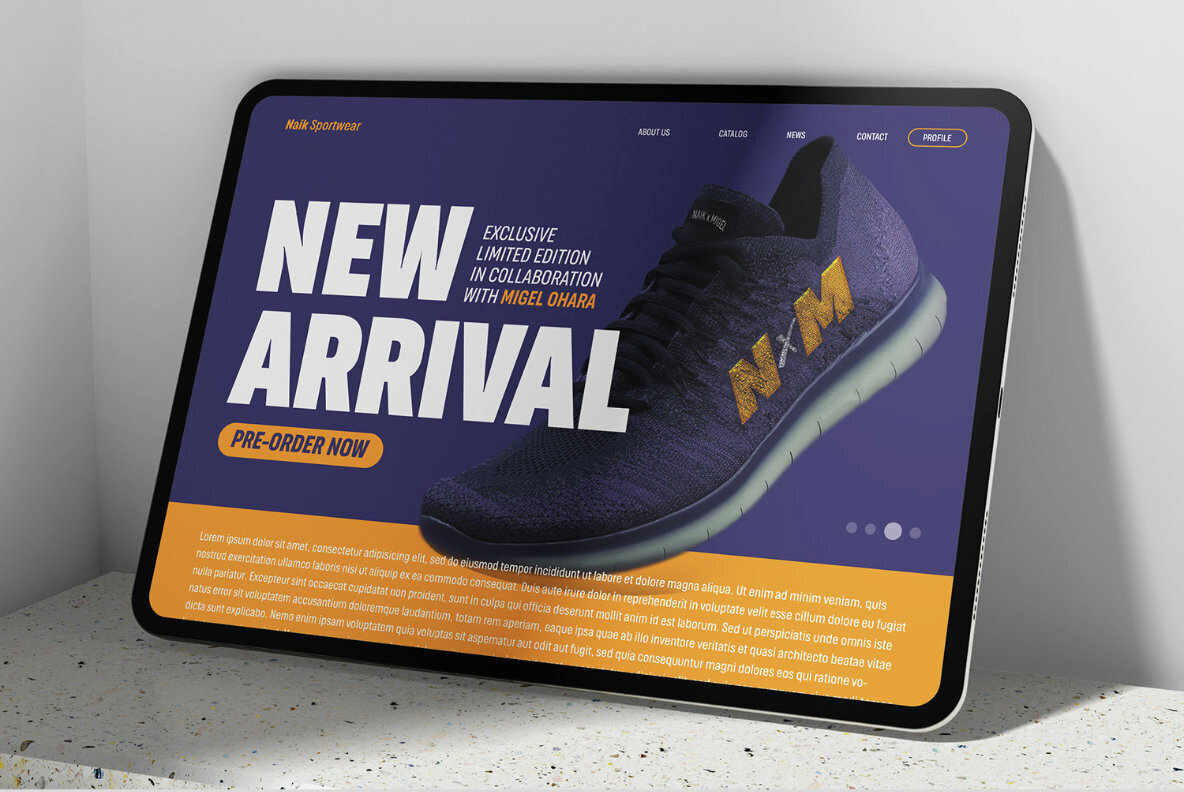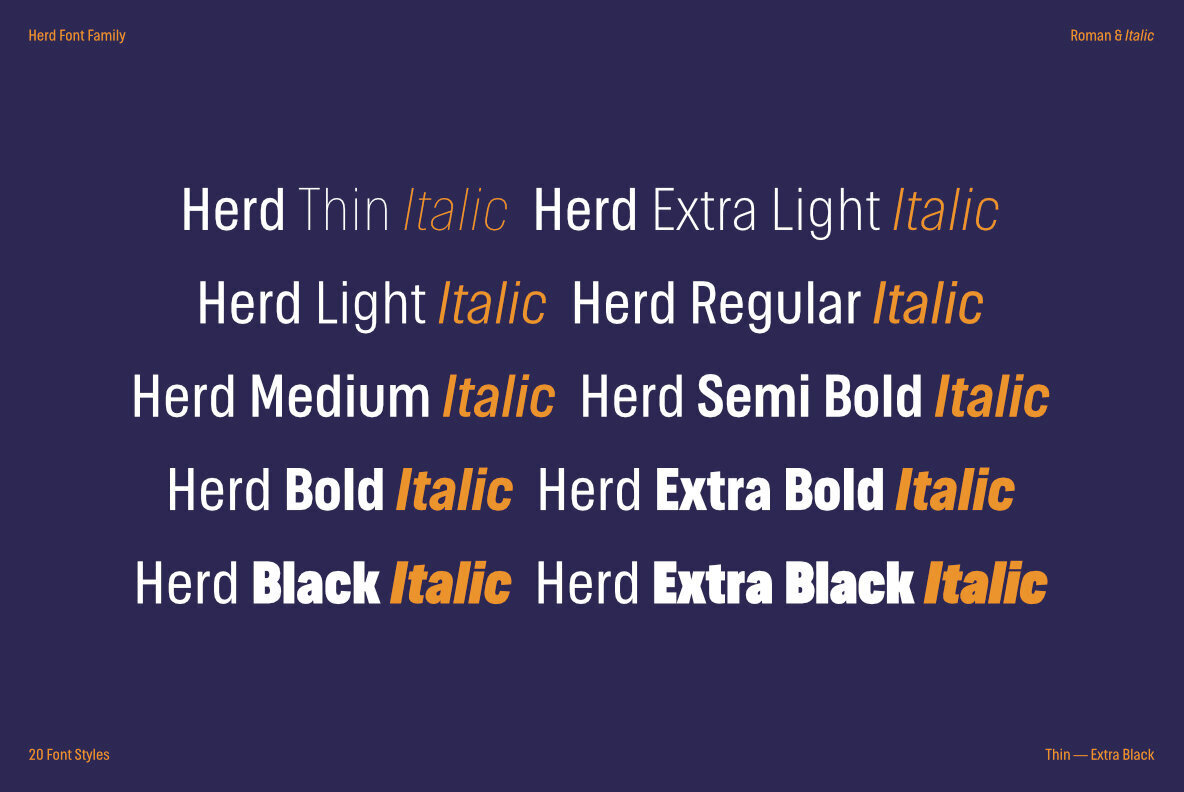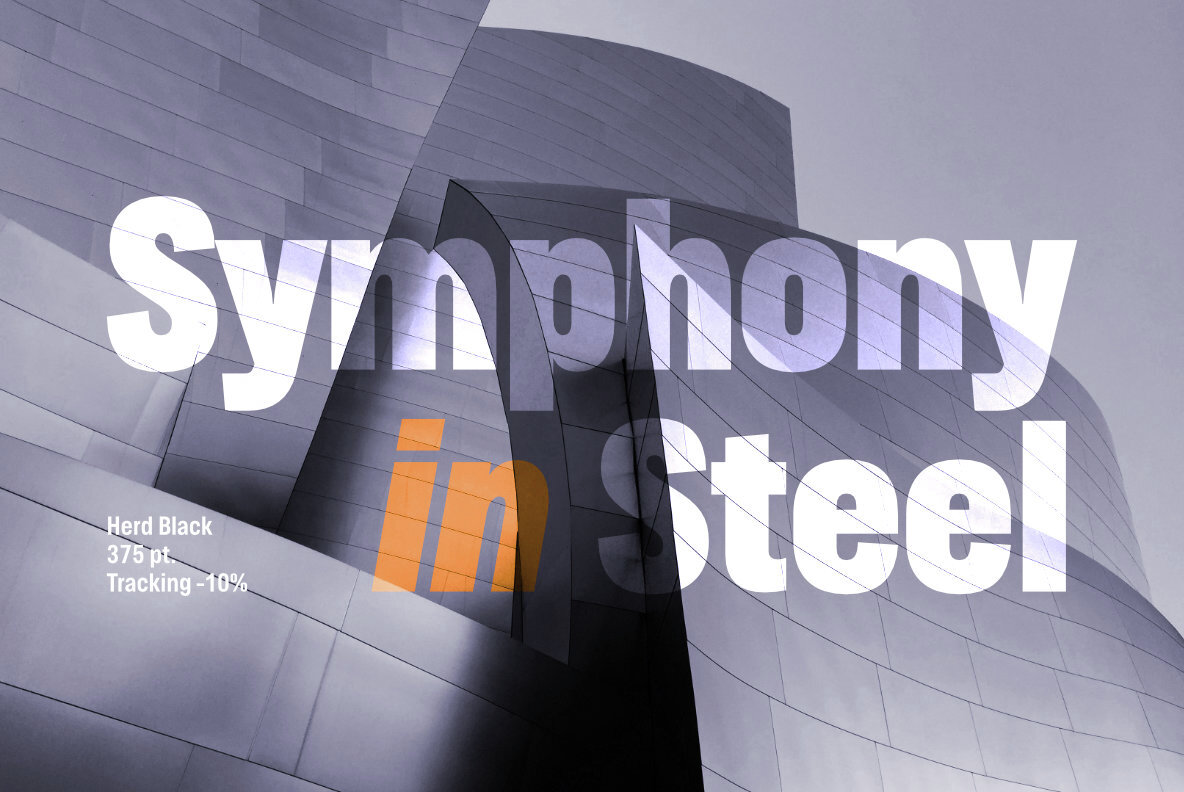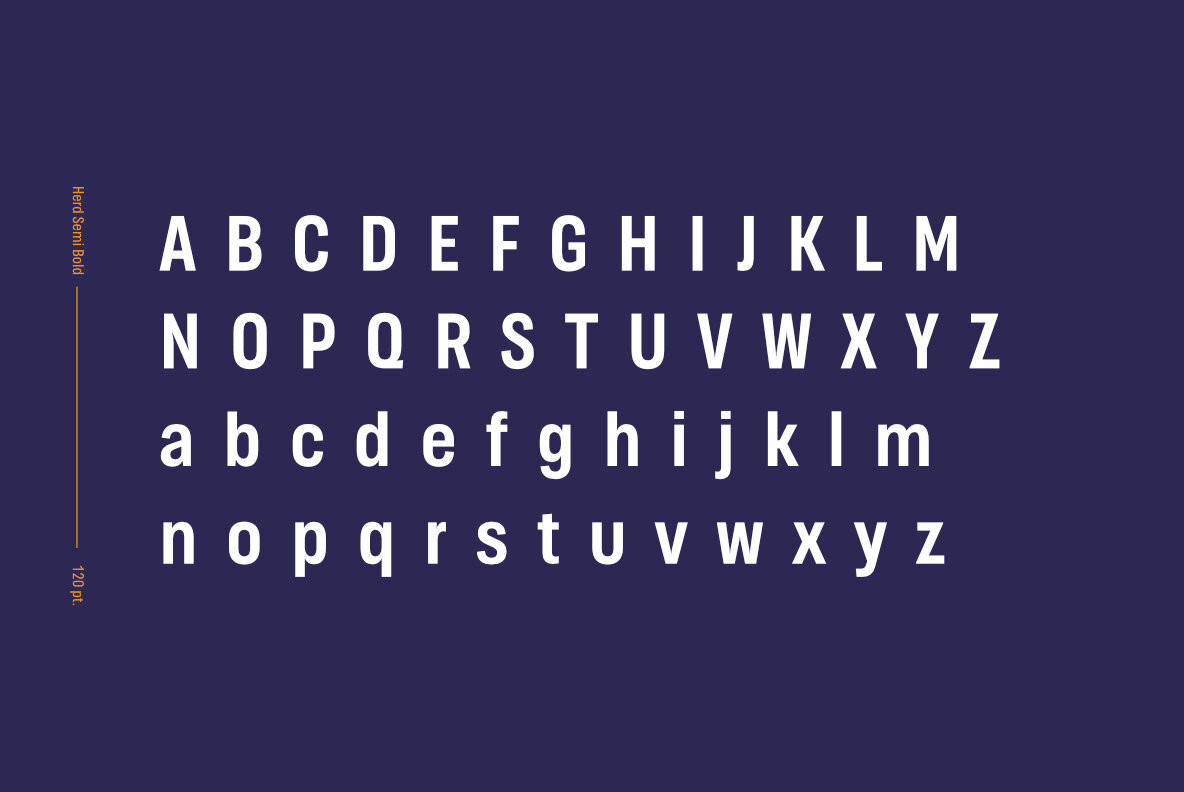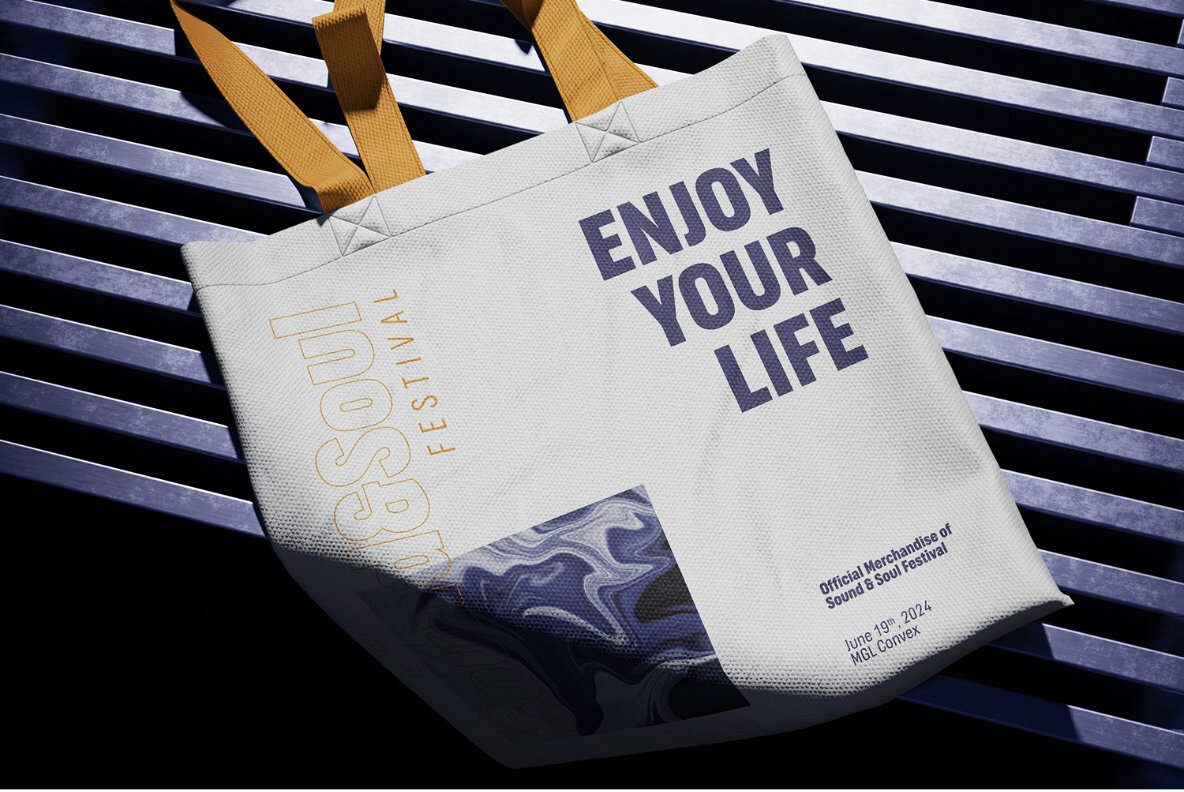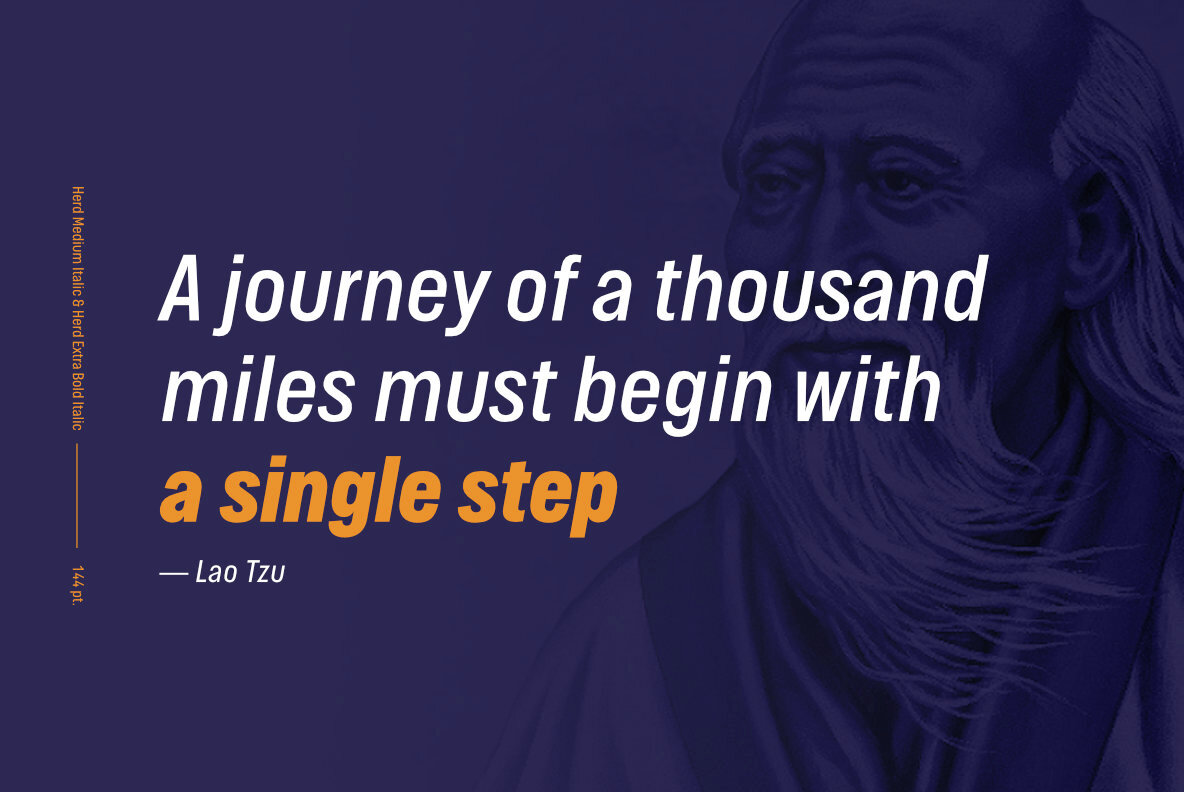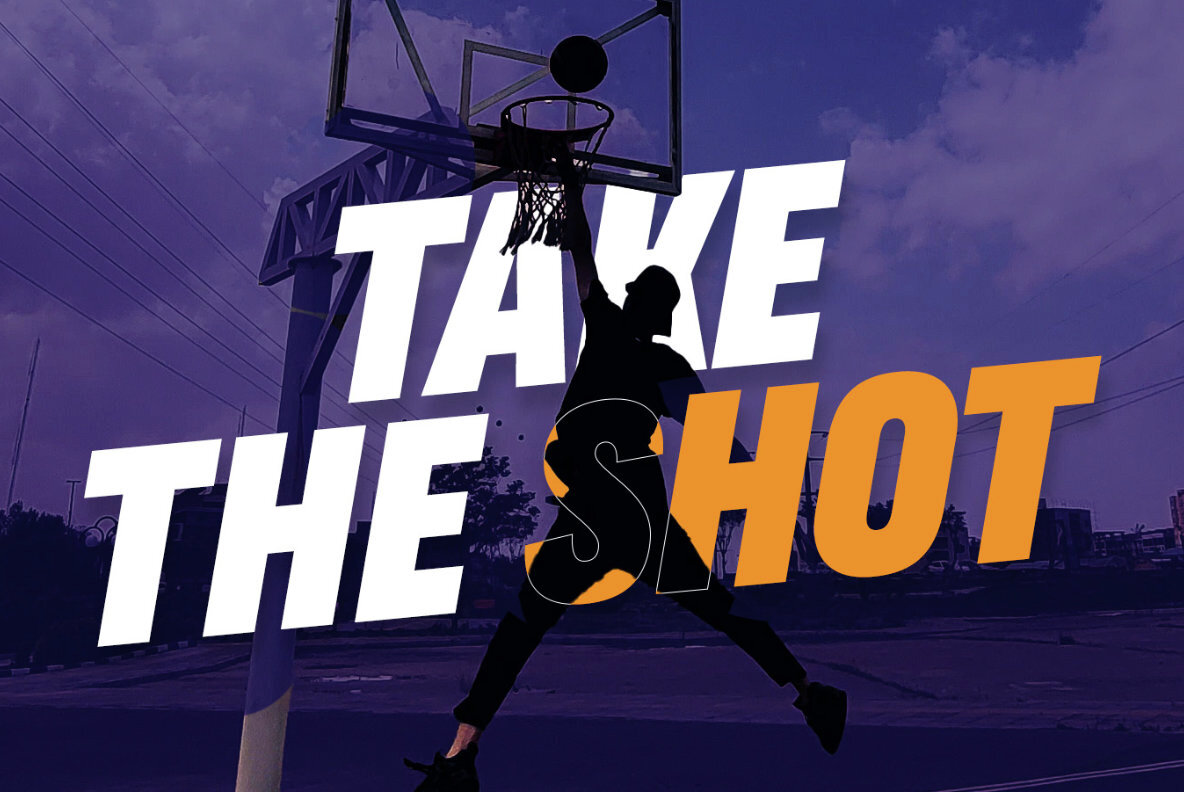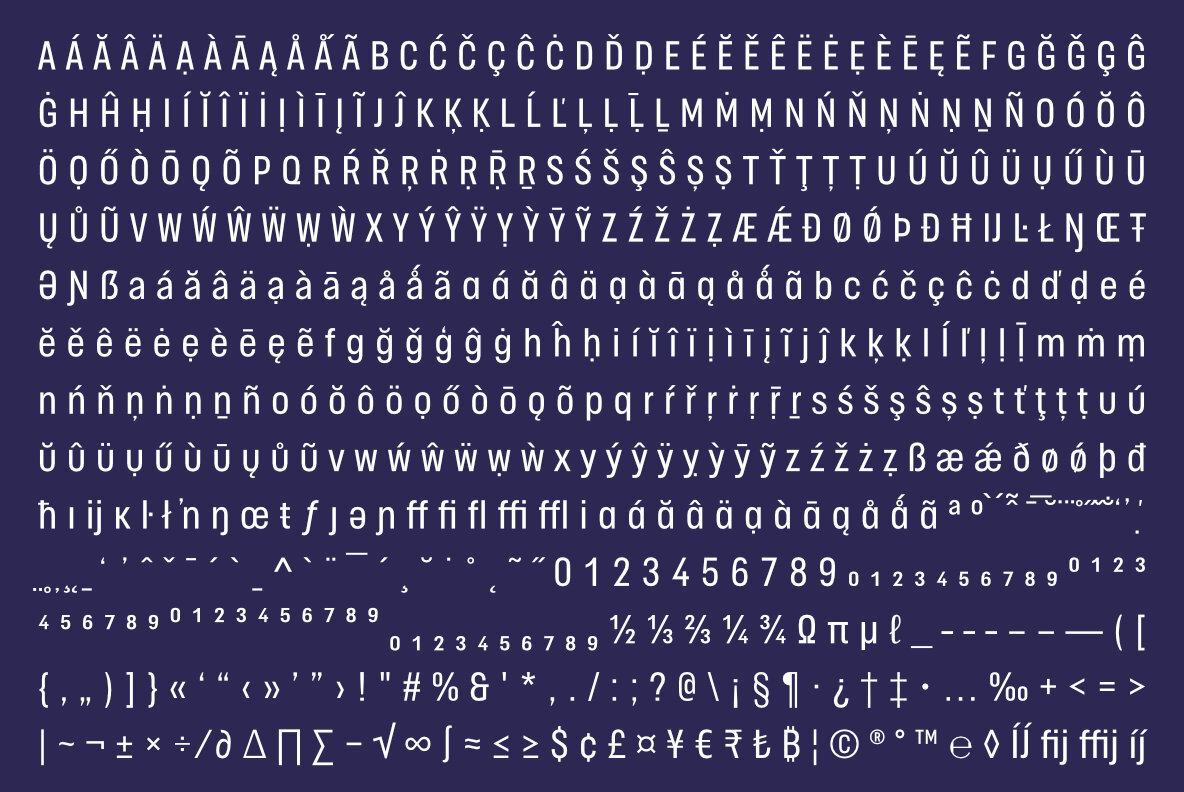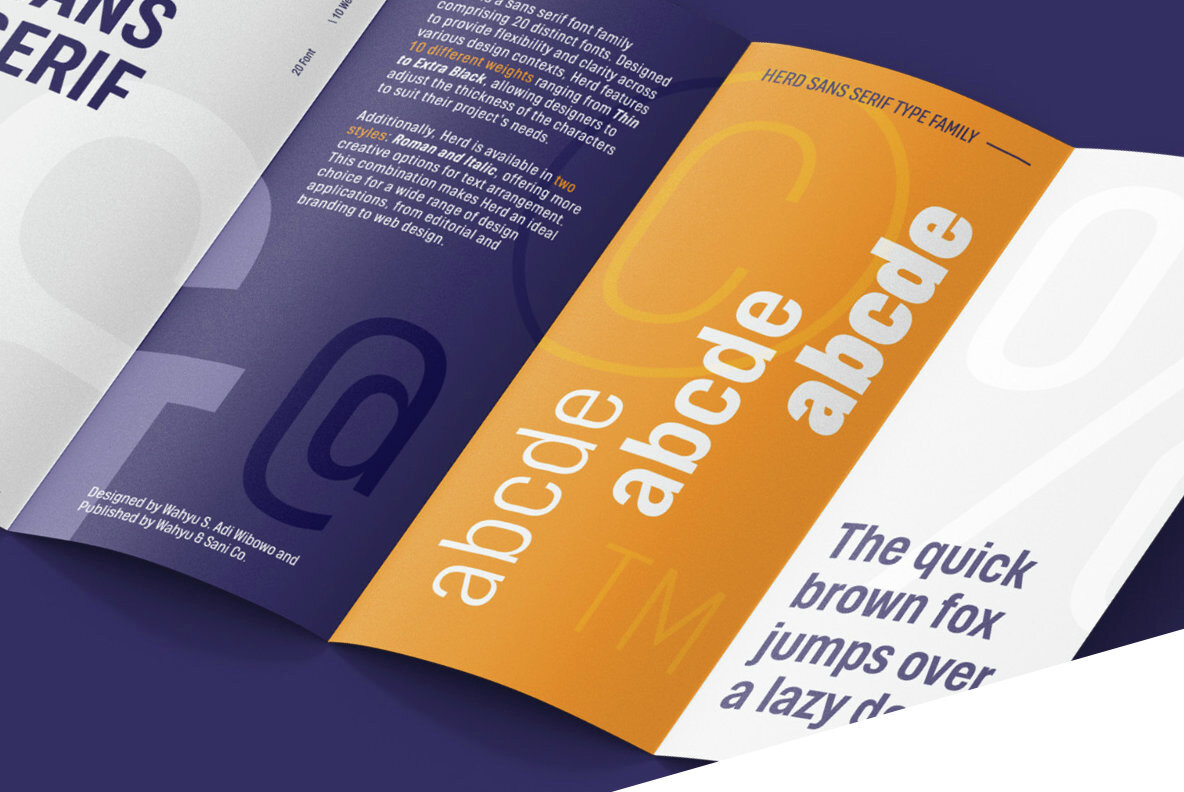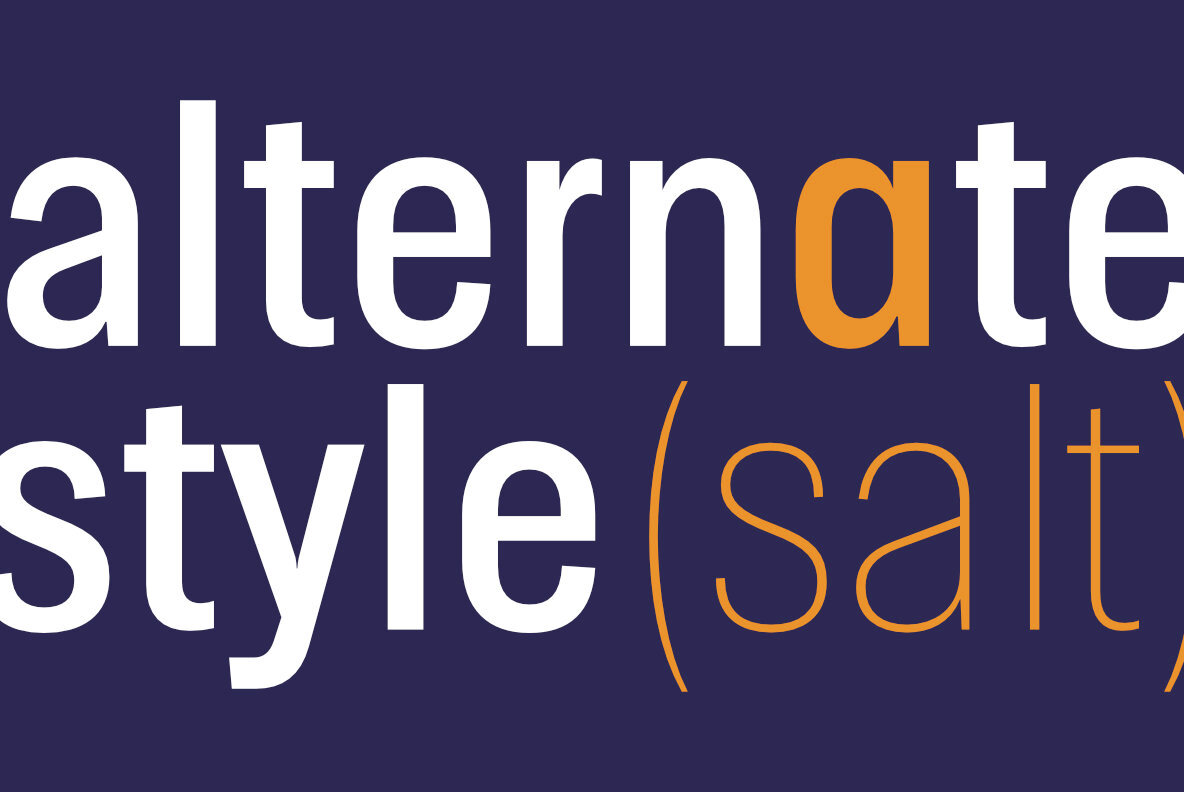
Herd Font
Herd is a sans serif font family comprising 20 distinct fonts. Designed to provide flexibility and clarity across various design contexts. Herd features 10 different weights ranging form Thin to Extra Black, allowing designers to adjust the thickness of the characters to suit their project's needs. Additionally, Herd is available in two styles, Roman and Italic, offering more creative options for text arrangement. This combination makes Herd an ideal choice for a wide range of design applications, from editorial and branding to web design.